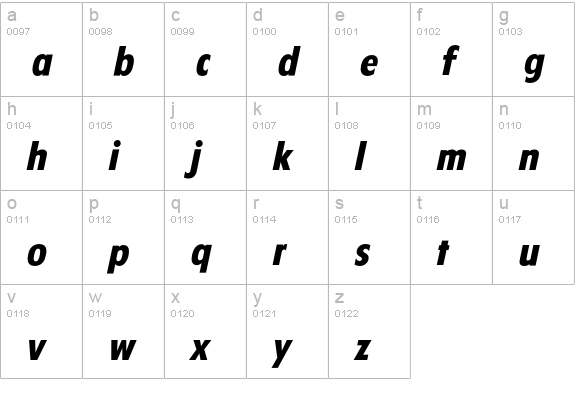
Florida-BoldIta Font Details
Florida-BoldIta is a stylish and versatile font that embodies the vibrant spirit of the Sunshine State. Its bold and italicized design exudes confidence and modernity, making it perfect for a wide range of creative projects. Whether you're designing a logo, website, or marketing materials, Florida-BoldIta will make your text stand out with its unique flair. And the best part? Florida-BoldIta is available for free download at FontsMarket.com. This means you can easily access this eye-catching font and elevate your designs without breaking the bank. Don't miss out on the opportunity to enhance your projects with the striking elegance of Florida-BoldIta. Download it now and let your creativity shine!